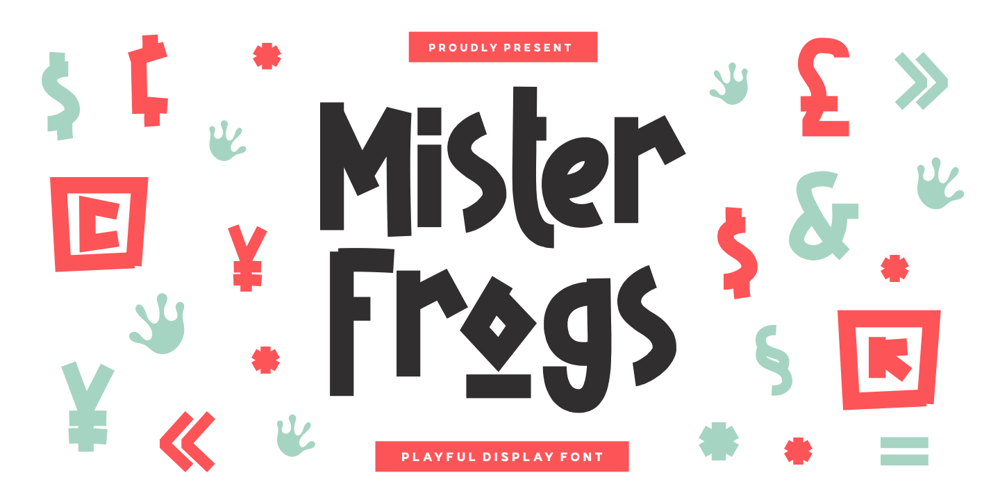
Mister Frogs Font Family was designed by Fype and published by Fype Co. Mister Frogs contains 1 styles and family package options. Pleased to introduce you to Mister Frogs new playful display font! Its funky and fun design is also perfect for a branding, packaging, merchandise, and anything that requires a fun and confidence look!